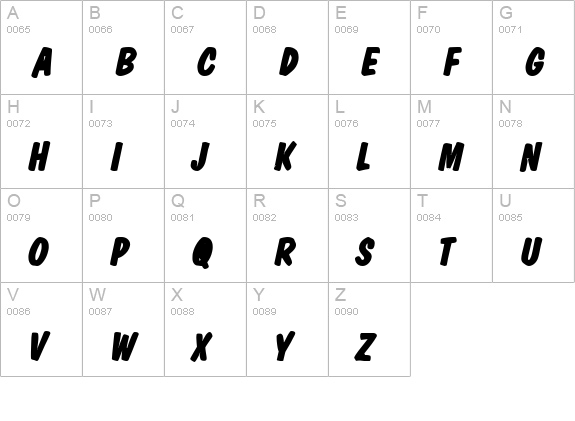
Danto BoldItalic Font Details
The Danto BoldItalic font exudes elegance and sophistication with its sleek and modern design. Its bold yet italicized style adds a touch of flair and individuality to any project. Whether used for headings, titles, or creative designs, this versatile font is sure to make a statement. Best of all, the Danto BoldItalic font is available for free download at FontsMarket.com. This means you can easily enhance your projects with this high-quality font without any cost. Don't miss out on the opportunity to add a touch of boldness and style to your designs with the Danto BoldItalic font, now just a click away for free at FontsMarket.com.